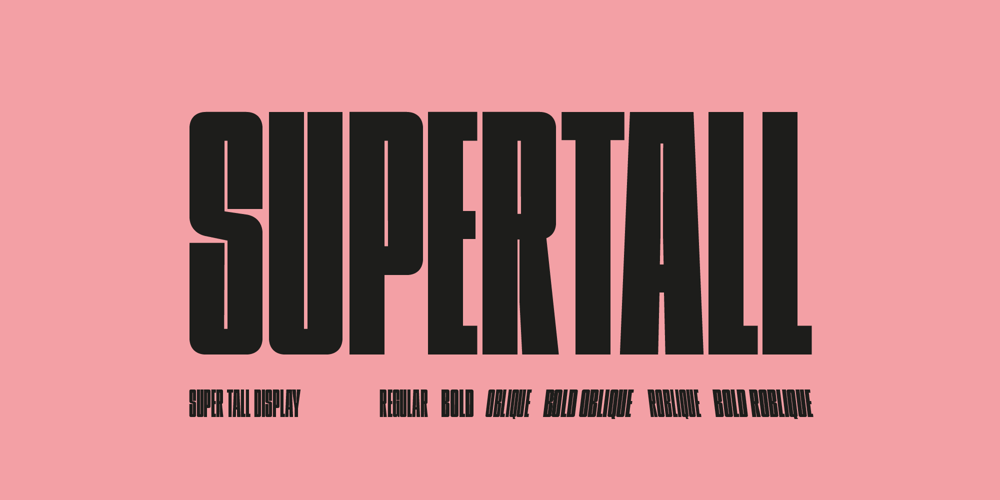
Supertall Font Family was designed by Adam Greasley and published by wearecolt. Supertall contains 6 styles and family package options. Supertall, ultra condensed and very large.Supertall is a massive statement display font designed to command a page by filling a lot of space. Taking inspiration from hard-hitting movie titles, Supertall brings some 80s video game vibes with a modern touch.The Supertall type family features Regular and bold weights with obliques and reverse obliques for added speed and style.Features: 357 GlyphsFractionsExtensive language support.